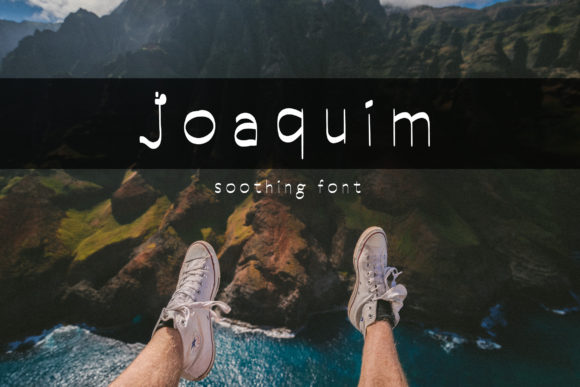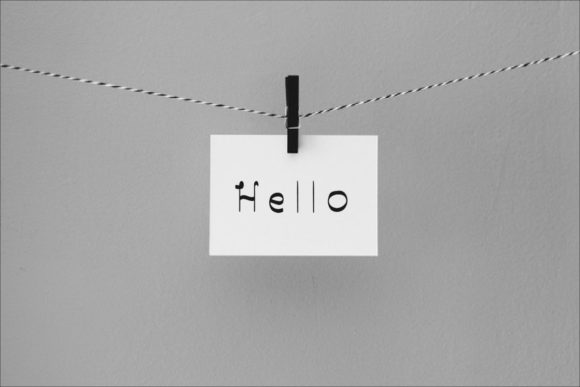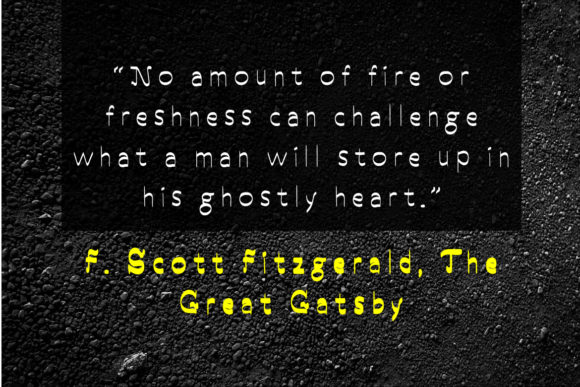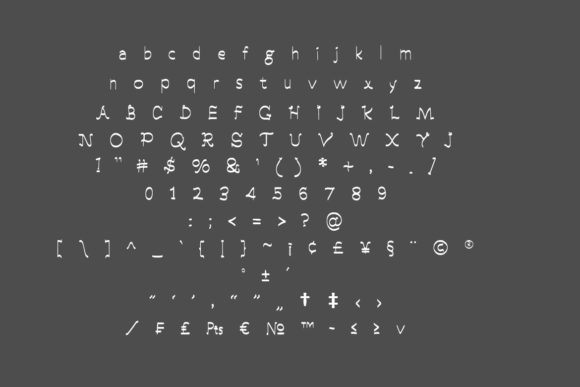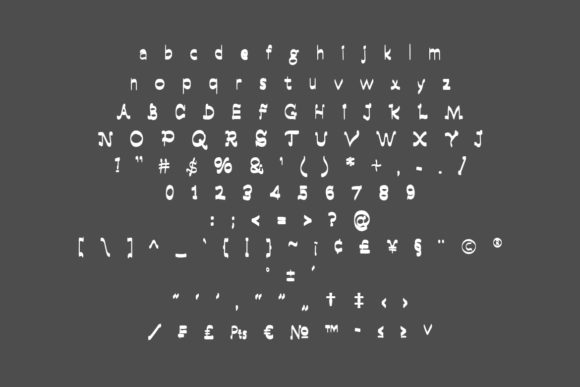
HomeScript FontsJoaquim Font Script Fonts Joaquim Font FacebookXPinterestWhatsApp Joaquim Font Poster 2 Joaquim Font Poster 3 Joaquim Font Poster 4 Joaquim Font Poster 5 About Joaquim Font Joaquim is a fun handwritten font with a unique feel. Get inspired by its authentic feel! DOWNLOAD ON CREATIVE FABRICAThis font is sold and delivered by Creative Fabrica. Font Canyon may earn a commission if you buy through this link. People also explored Worship Font Sweet Sunday Font Feallico Font Kinsey Font Black Font Happy Smile Font Cutie Cutie Font Bently Garth Font Nineties Font 334 0 TagsJoaquim Font Previous articleZambowa FontNext articleOliver Blue Font LEAVE A REPLY Cancel reply Comment: Please enter your comment! Name:* Please enter your name here Email:* You have entered an incorrect email address! Please enter your email address here Website: Save my name, email, and website in this browser for the next time I comment. Personal Use Free Foolish Hand Personal Use Free Read more about this font Qiwqiw Personal Use Free Read more about this font BD Medled Personal Use Free Read more about this font Vanity Personal Use Free Read more about this font BLOG 5 Fonts That Will Dominate Design Trends in 2026 5 Fonts for 2026 That Will Dominate Design Trends Typography plays a critical role in visual communication, and as we look ahead to 2026, itβs... Best Fonts for T-Shirt Design β Top 2025 Picks Top 7 Google Fonts Alternatives for Faster and Privacy-Friendly Web Design (2025) Exploring Font Trends